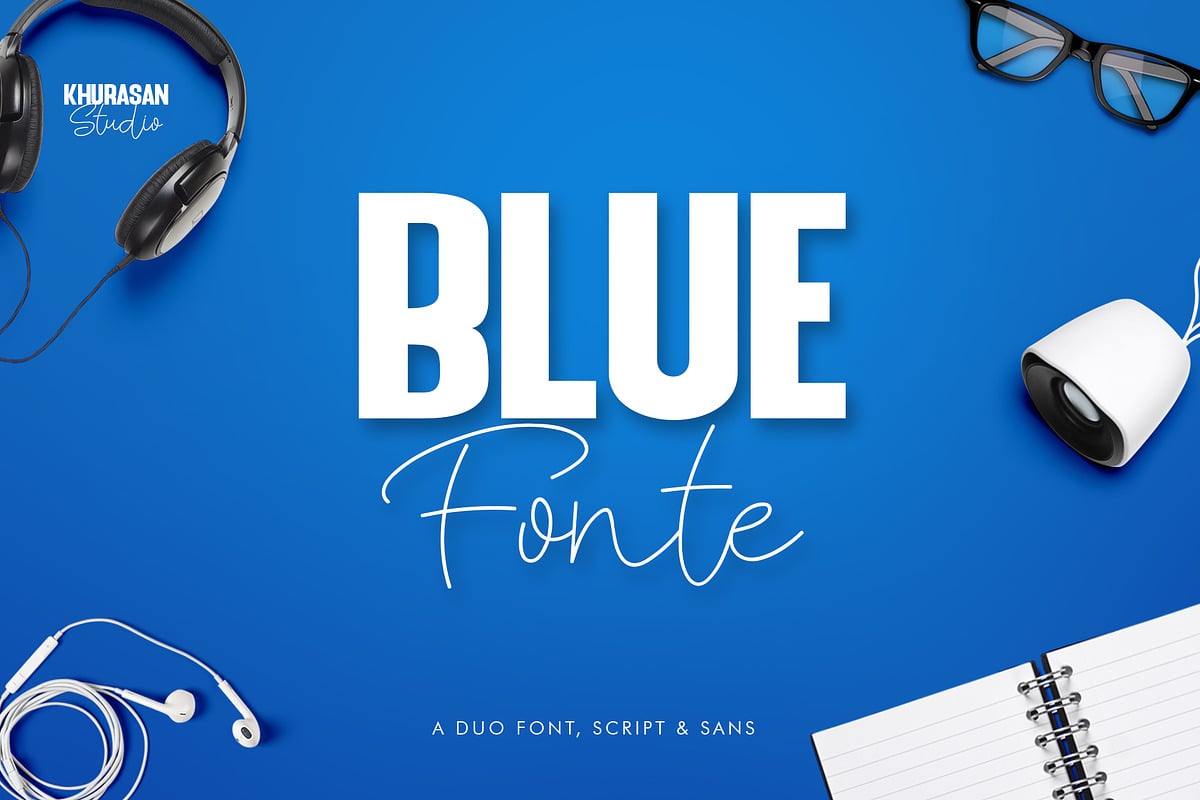
Blue Fonte Font Duo
Blue Fonte Font Duo combines elegant handwriting script with clean sans serif styling for versatile design projects. This typography pair delivers the perfect balance between personality and professionalism, making it ideal for a wide range of creative applications. Whether you're designing business cards, posters, logos, magazine layouts, covers, banners, t-shirts, headers, or large-scale artwork, Blue Fonte adapts beautifully to your vision. Files Included: Blue Fonte Script (ttf & otf) Bl...